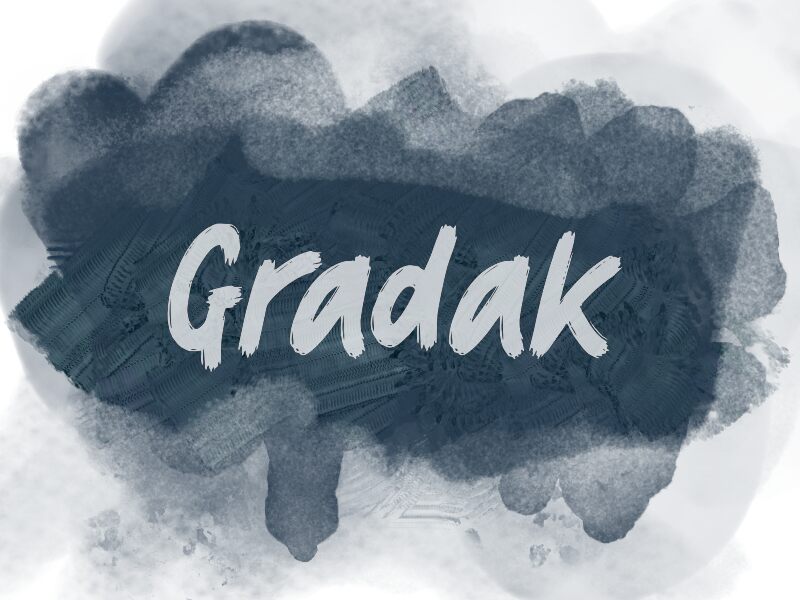
Gradak
Gradak is a captivating brush-style font created by wep. This dynamic typeface boasts a bold, expressive appearance with its organic, sweeping strokes. The font's rough, handcrafted aesthetic evokes a sense of artistry and authenticity, making it an intriguing choice for projects seeking a distinctive, handwritten-inspired look.
Gradak's versatility allows it to shine in a variety of design contexts, from editorial layouts and branding materials to packaging designs and event posters. Its unique character and energetic flair can elevate the visual impact of any project, whether you're crafting a visually striking header, crafting a memorable logo, or bringing a touch of rustic charm to your design work.